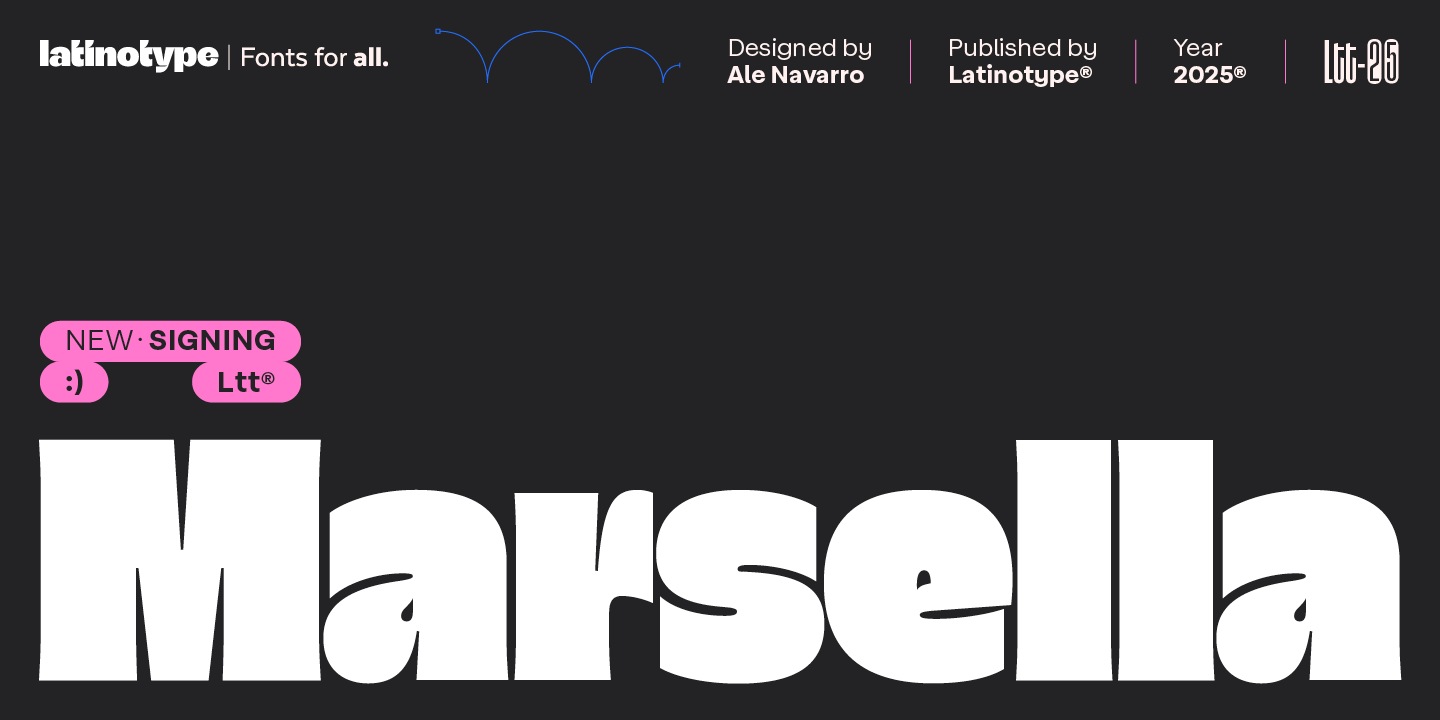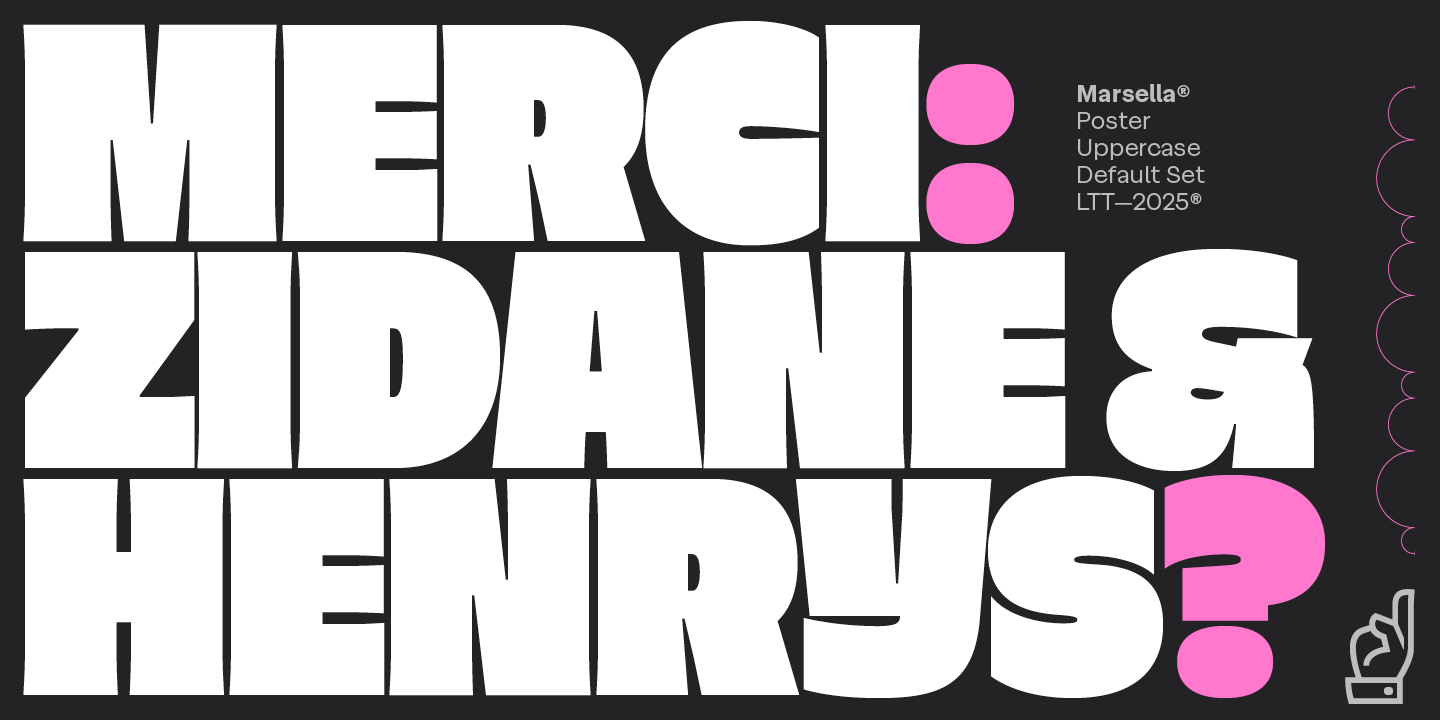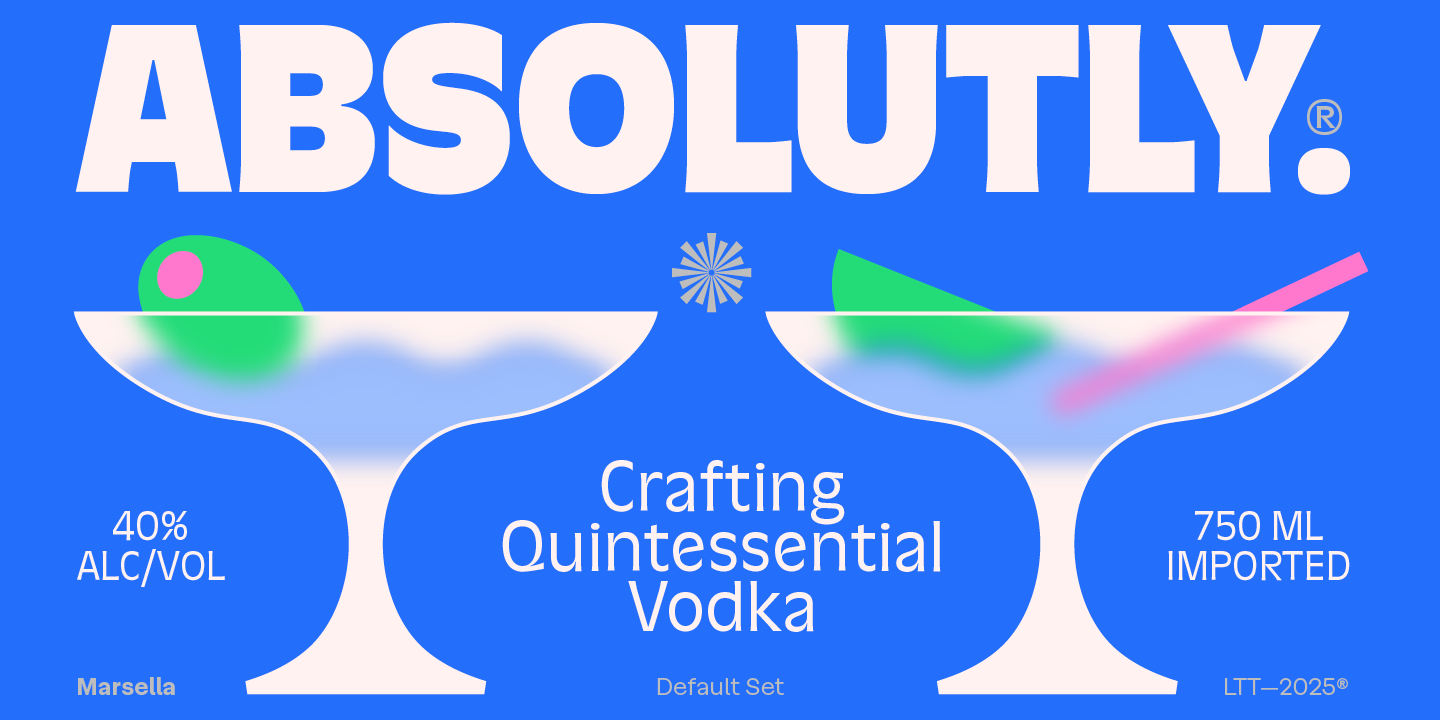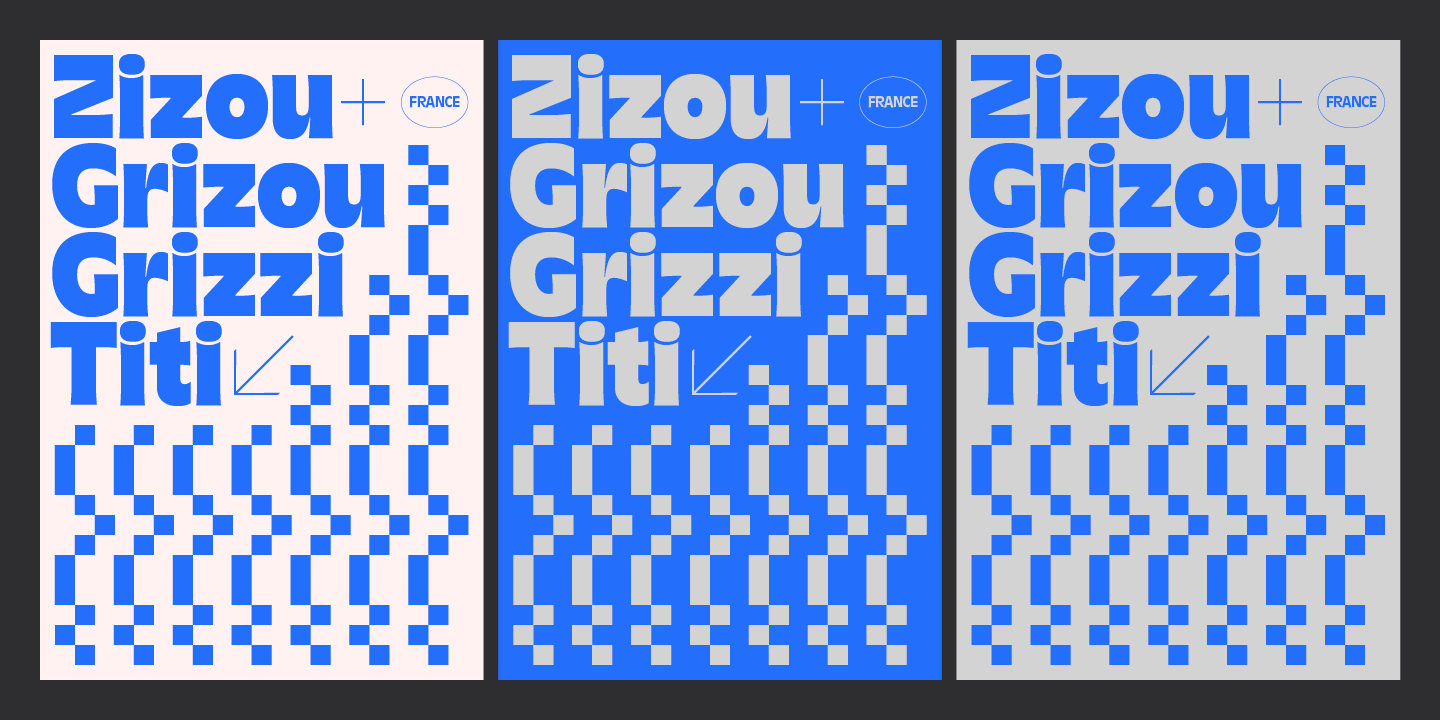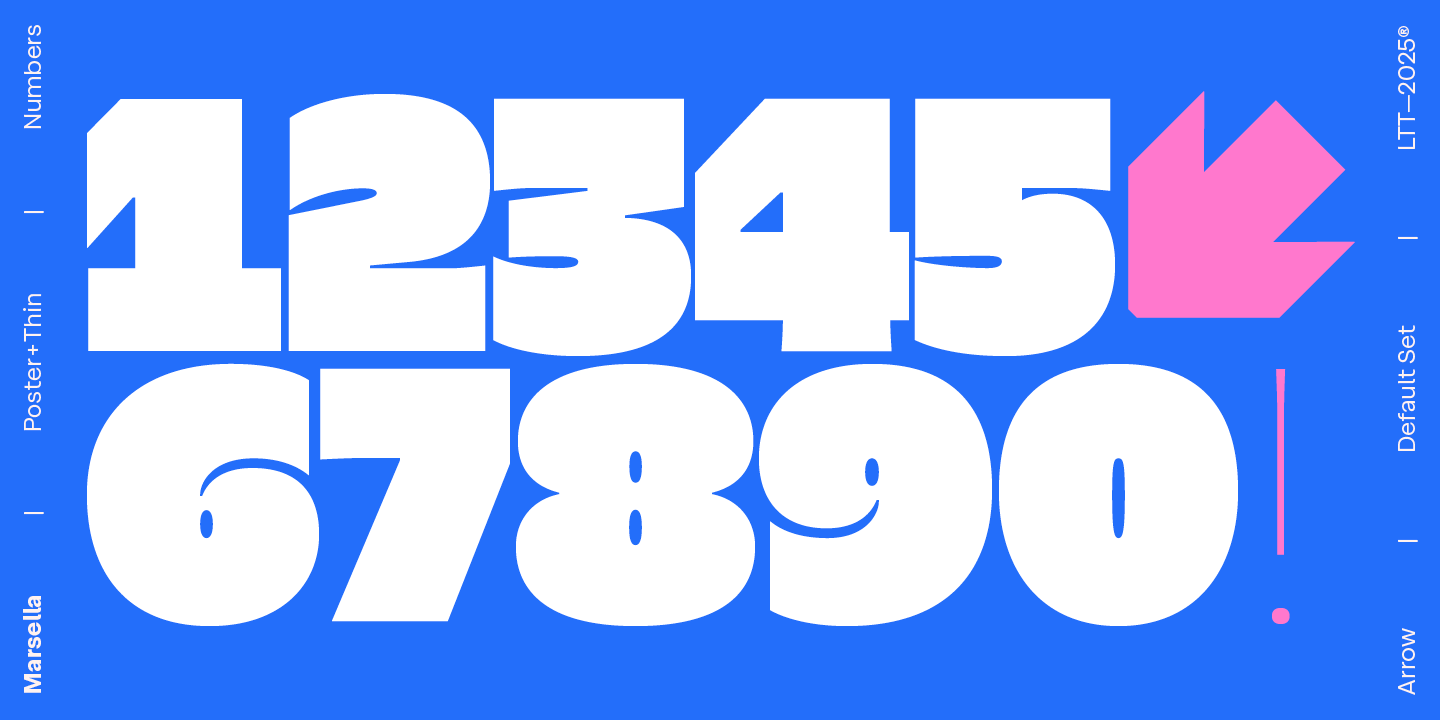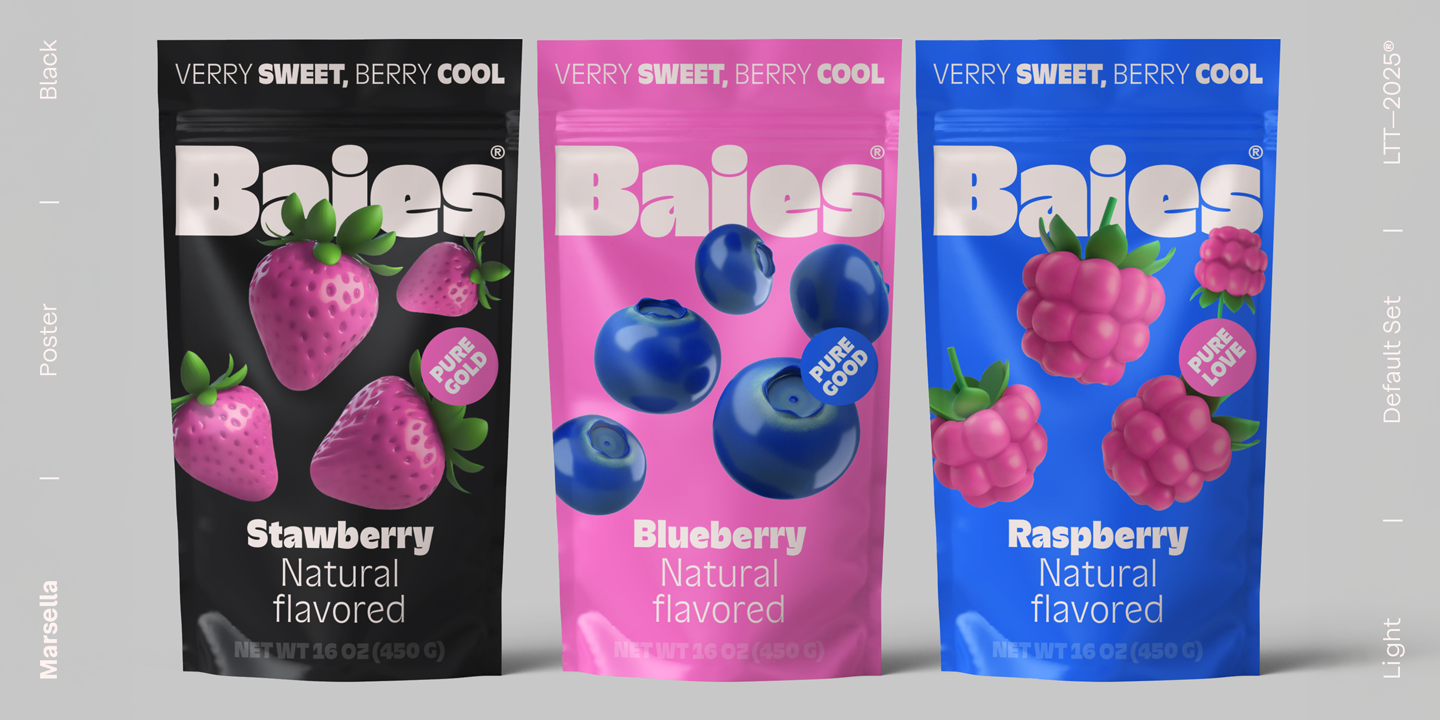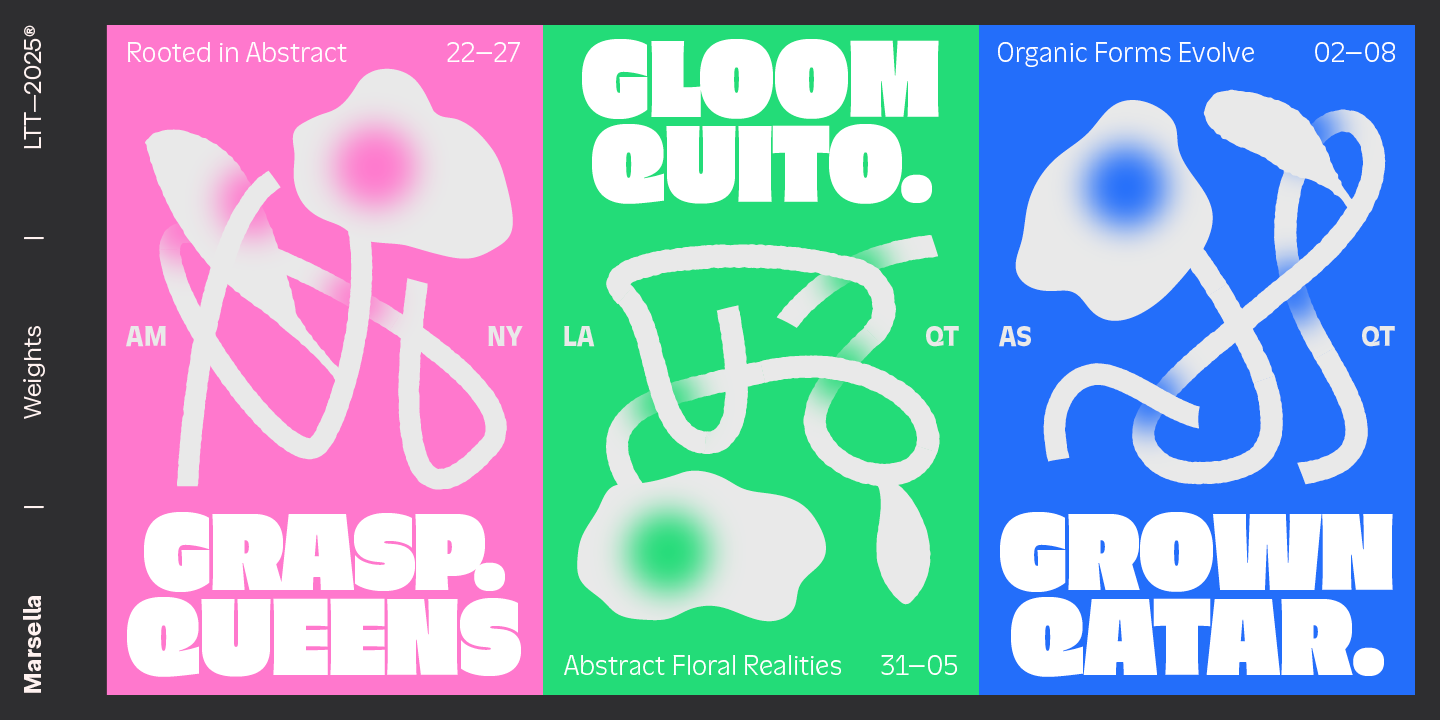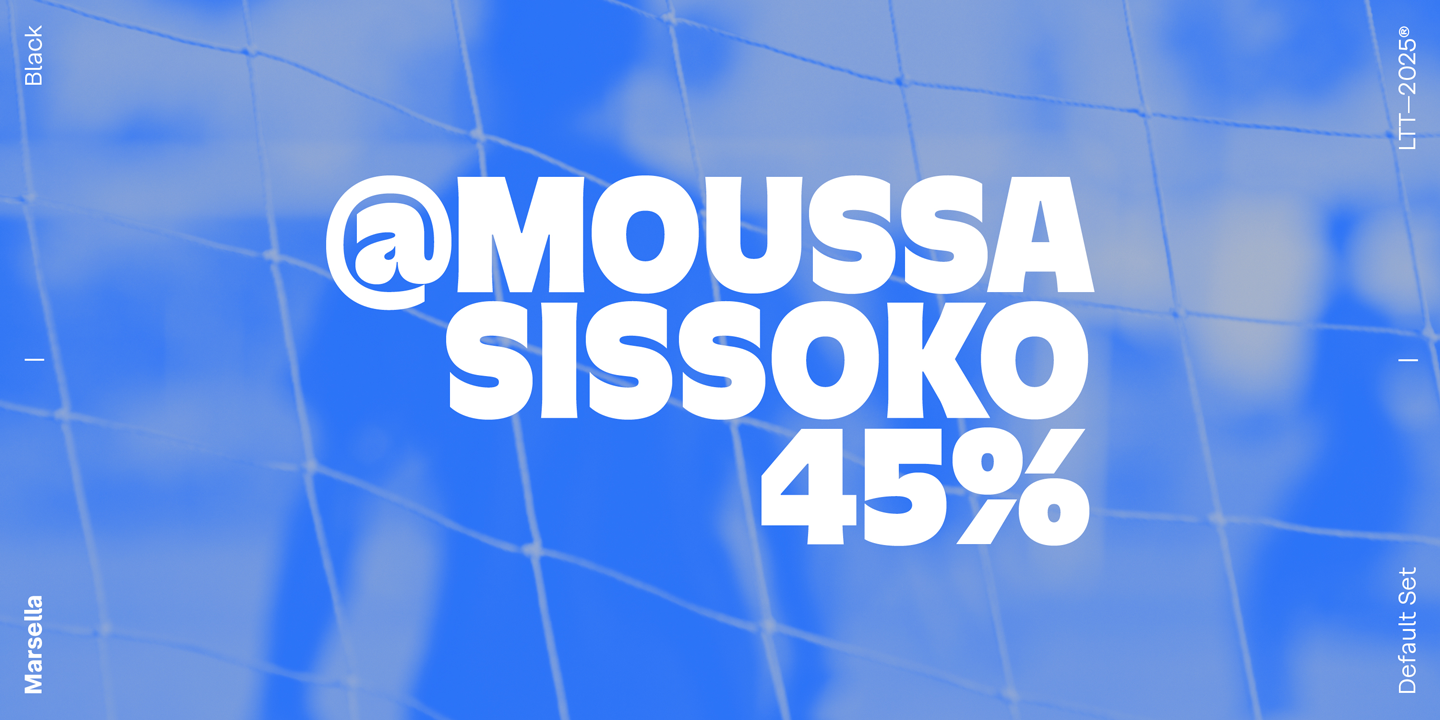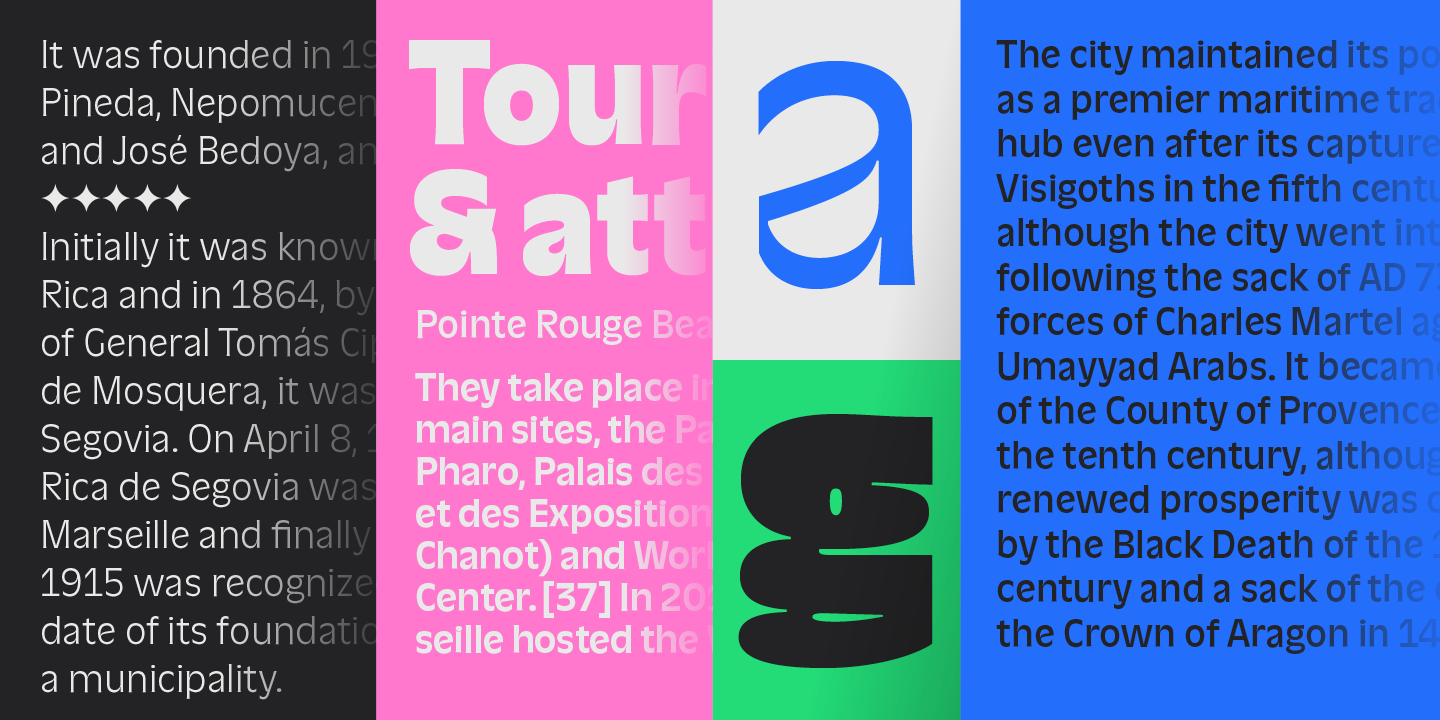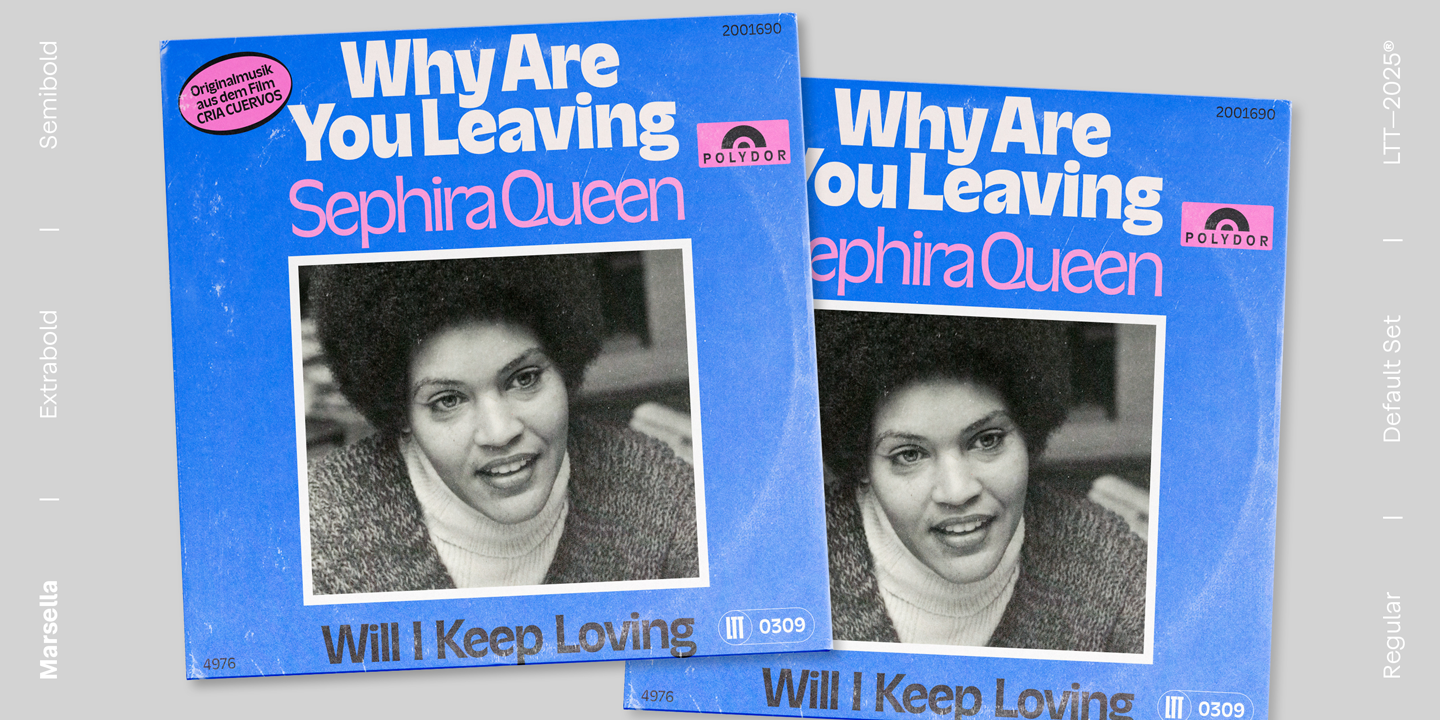
Featuring alternative glyphs that expand its versatility, improve visual flow, and ensure a harmonious design, Marsella provides a repertoire of 575 glyphs—inviting you to “dream big and design in detail”.